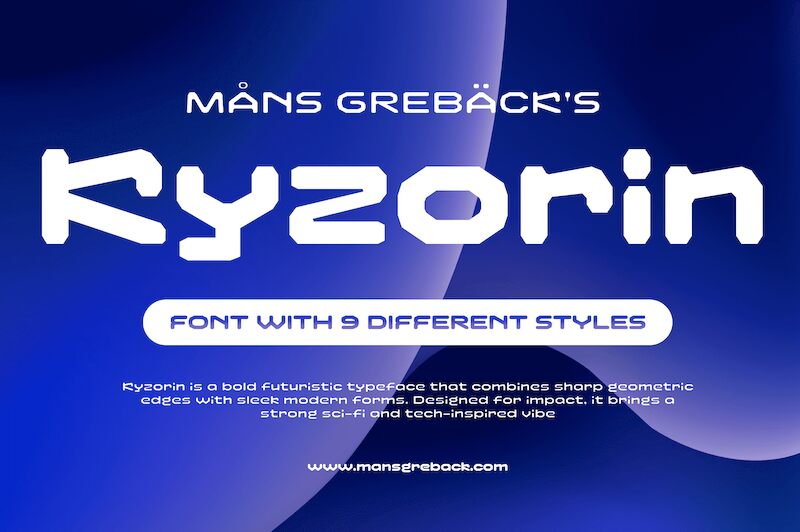
Kyzorin font family by Måns Grebäck consists of 5 stylish font styles that are free for personal use. The visual characteristics of the font are futuristic, geometric, and inspired by technology, including an impactful, sleek, and contemporary visual aesthetic. Kyzorin effectively combines an enjoyable visual composition with penmanship and a touch of elegance.
Kyzorin is a futuristic display typeface constructed with precision and bold confidence. With its octagonal structure and minimalistic, digital-era rhythm, Kyzorin brings a stylized retro-futuristic flavor while maintaining legibility.
The family includes a variety of weights and styles, such as Hatch, Outline, and Extrude, each offering a unique take on the same solid core.